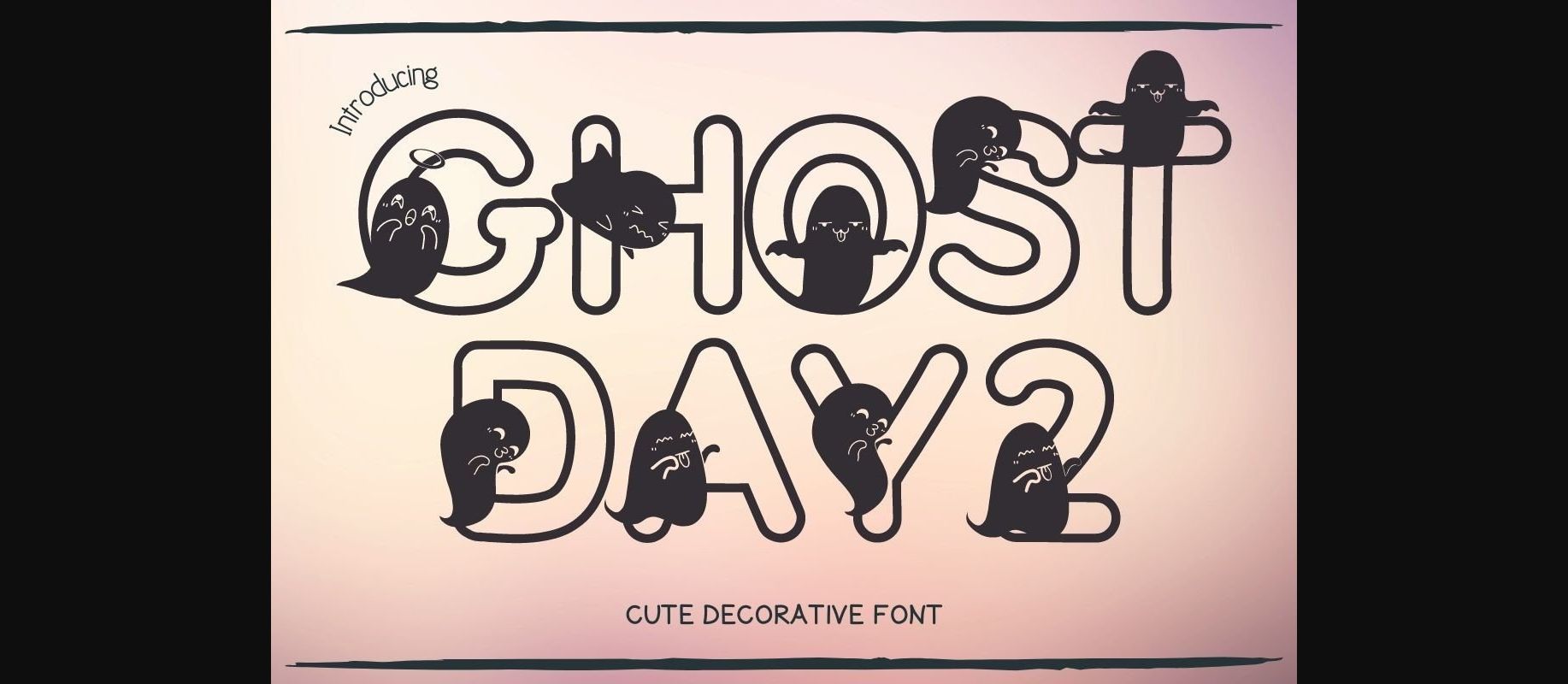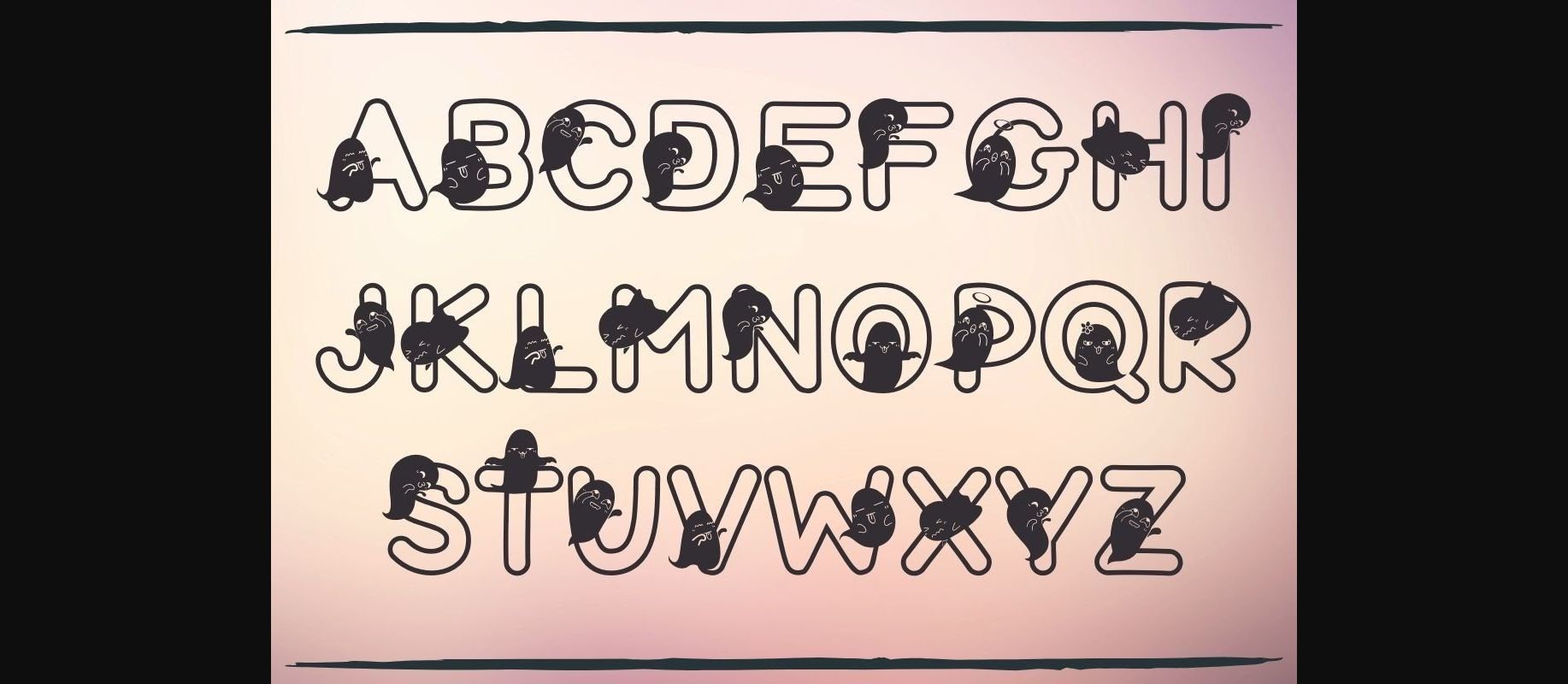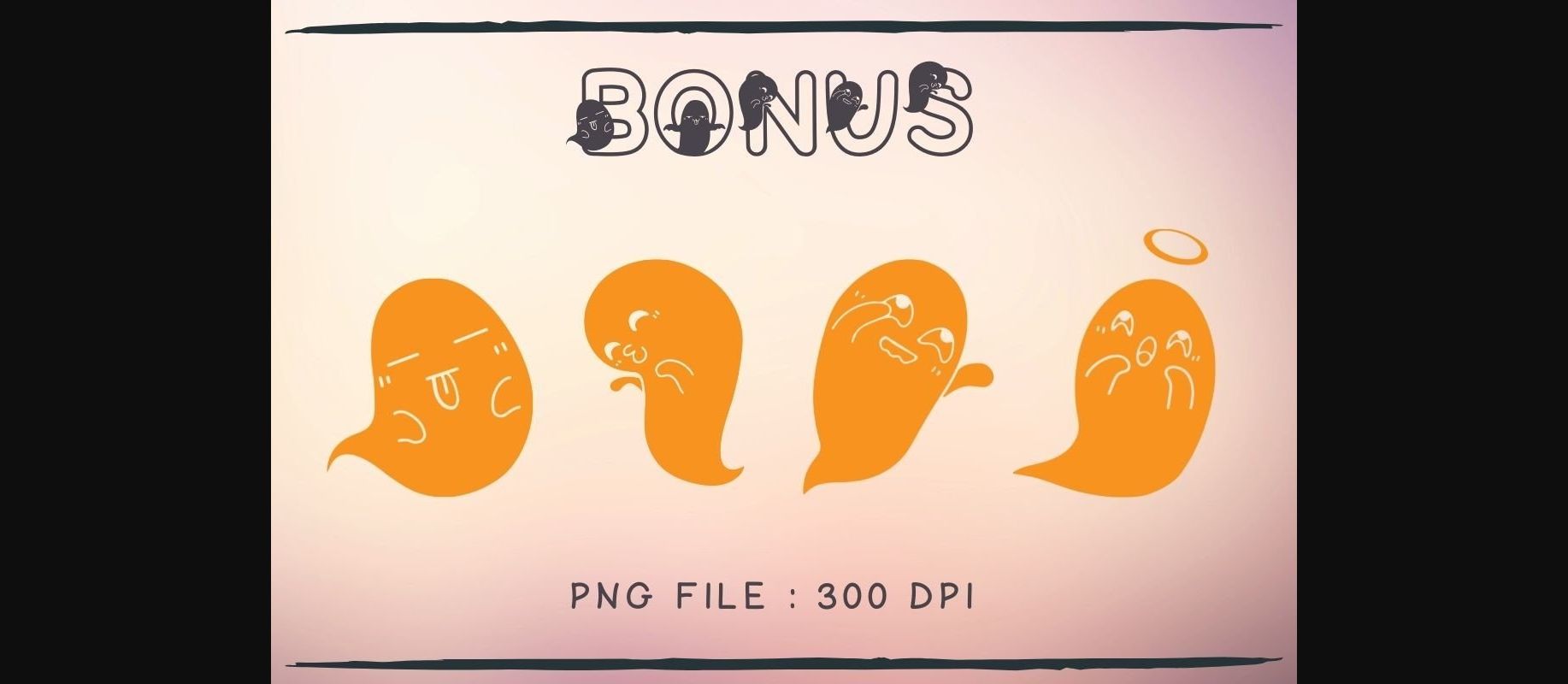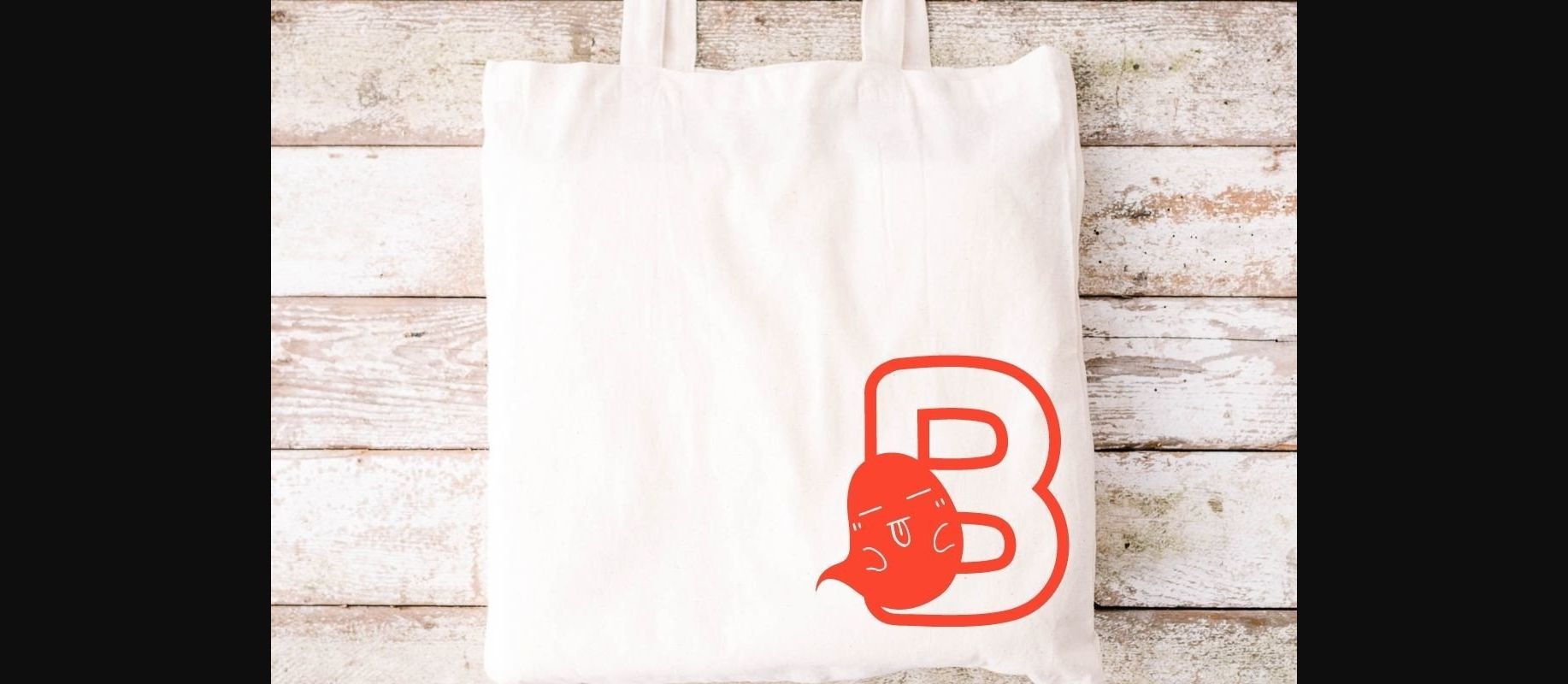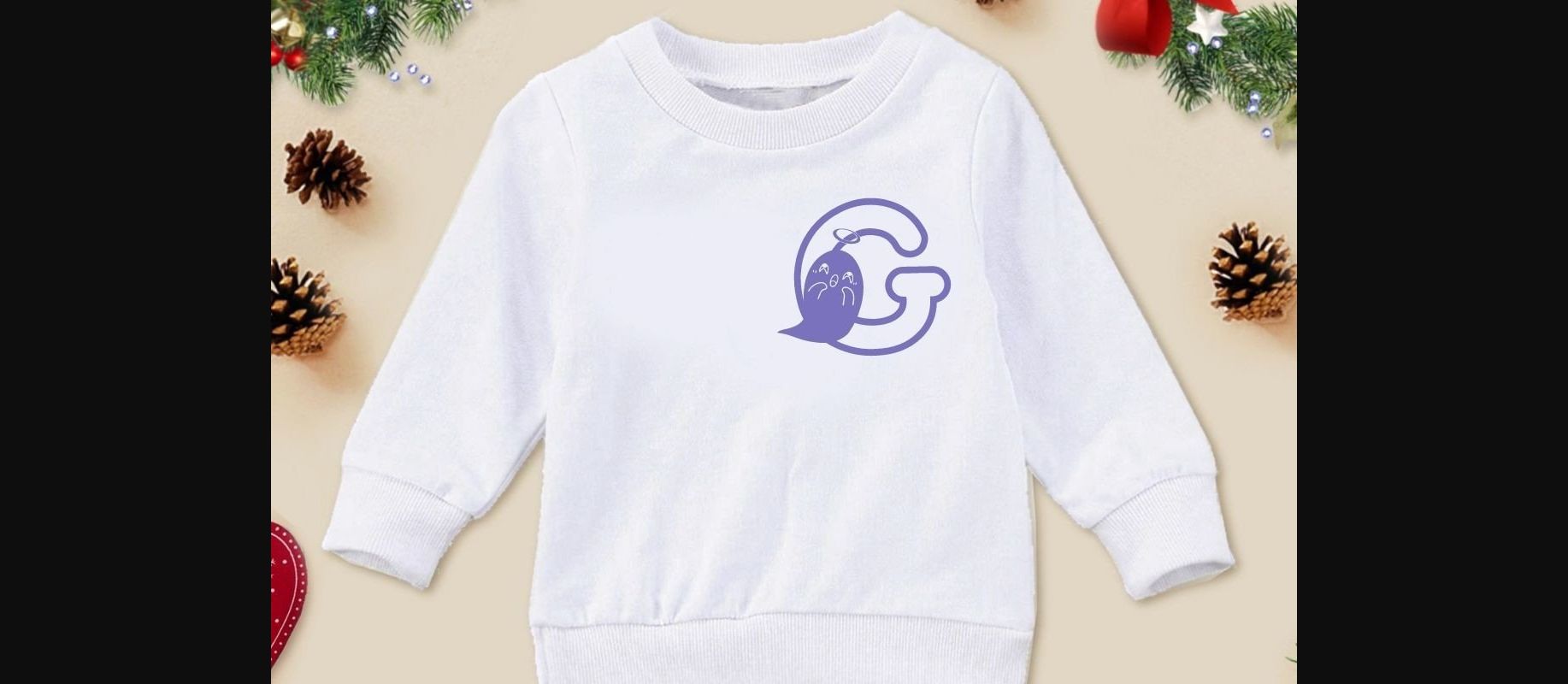
About Ghost Day Two Font
Ghost Day Two is a fun decorative font. This font uses multiple cute little ghost silhouettes combined with transparent letters. This font has a cute and quirky style and is perfect for creating a wide variety of products such as banners, content, mugs, cards, shirts, stationery, social media posts, and more!